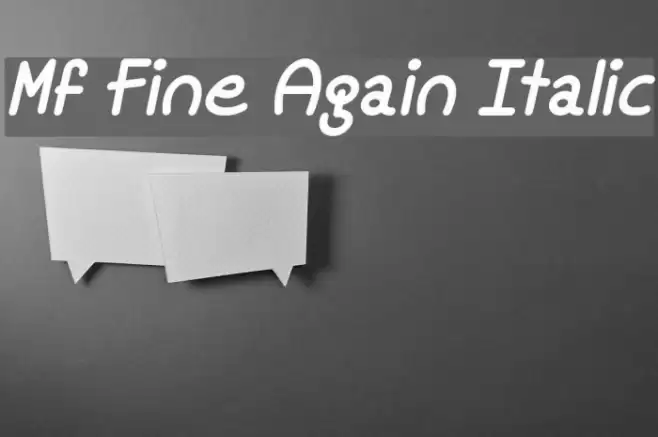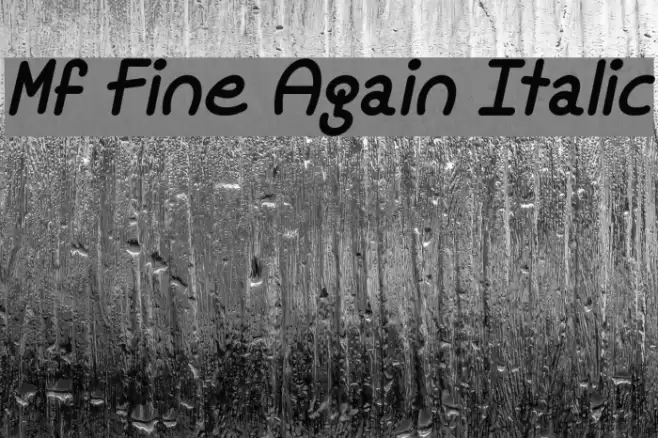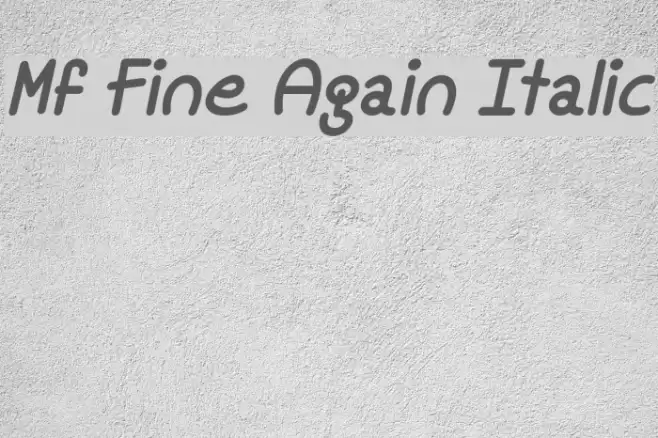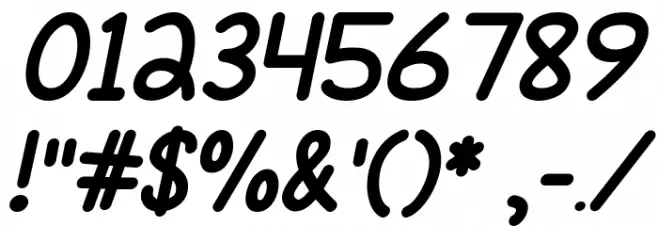
Mf Fine Again Italic Font
Mf Fine Again Italic Description
This font features a playful and dynamic style with a handwritten appearance. The characters are slightly slanted, giving it an italicized look, and the strokes are smooth and rounded, contributing to its friendly and approachable feel. The uppercase and lowercase letters maintain a consistent flow, while the numerals and special characters blend seamlessly with the overall design. The font's casual yet refined aesthetic makes it suitable for a variety of creative applications.
A playful, handwritten-style italic font with smooth, rounded strokes from Uncategorized fonts.
- Proposed Projects: Ideal for greeting cards, playful branding, children's books, and casual invitations.
- Overall Style: Casual
- Use Case: Headlines, Logos, Invitations